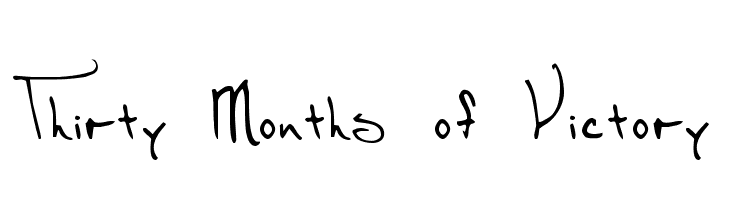
( greenlaces.tumblr.com )
A bold, handwritten font with a playful and chaotic style.
A casual, handwritten font with bold strokes and balanced spacing.
( Fonts by Kevin Weichel )
A dynamic and expressive handwritten font with fluid strokes.
( Fonts by www.kimberlygeswein.com - Kimberly Geswein )
A bold, handwritten script font with a playful and cohesive style.
( Fonts by www.kimberlygeswein.com - Kimberly Geswein )
A playful, informal handwritten font with dynamic strokes and quirky character designs.
( Fonts by www.kimberlygeswein.com - Kimberly Geswein )
A playful, handwritten font with rounded edges and a casual style.